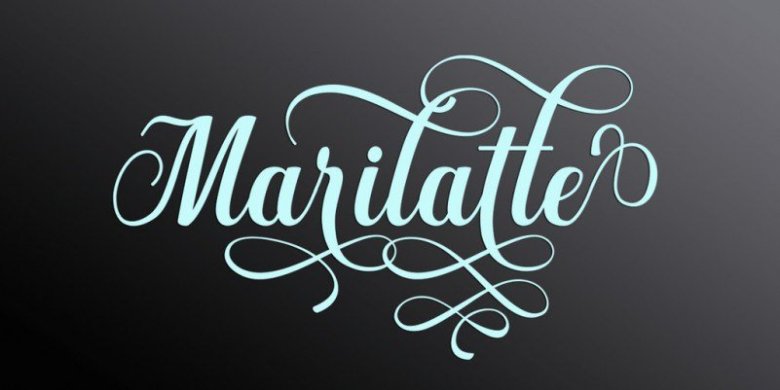
Marilatte Calligraphy Font
Marilatte Script is a new fresh & modern style with handmade calligraphy, decorative characters and dancing lineage! So wonderful are invitations like greeting cards, branding material, business cards, quotes, posters, and more!!